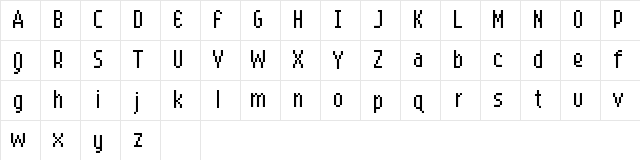
Remote Regular
Remote Family
Remote Regular
Design Context for Remote
Remote is a composed and adaptable typeface that performs quietly and consistently across a wide range of design contexts.
Pro Tip: Use Remote in both headline and body roles to test its range before committing to a single application.